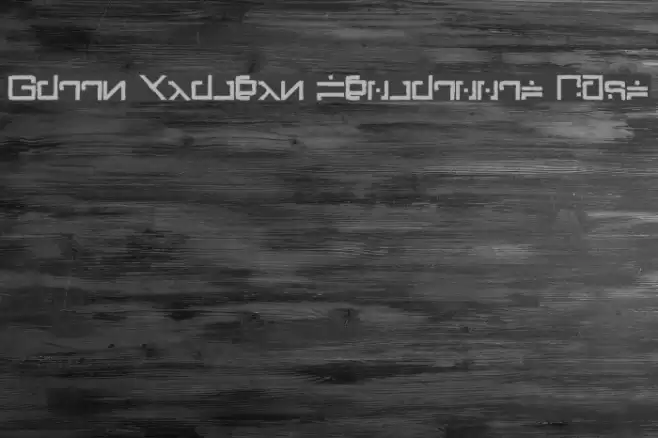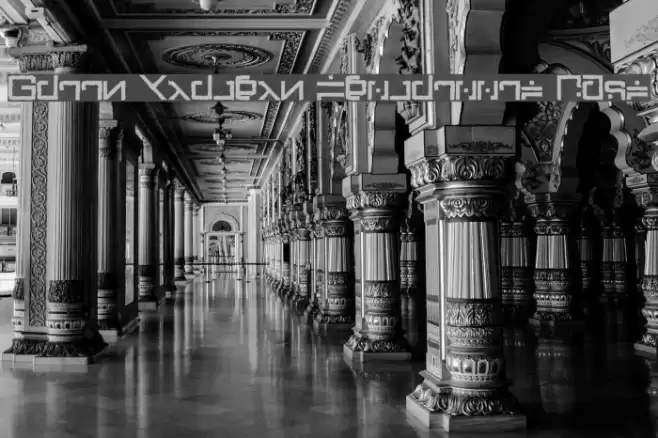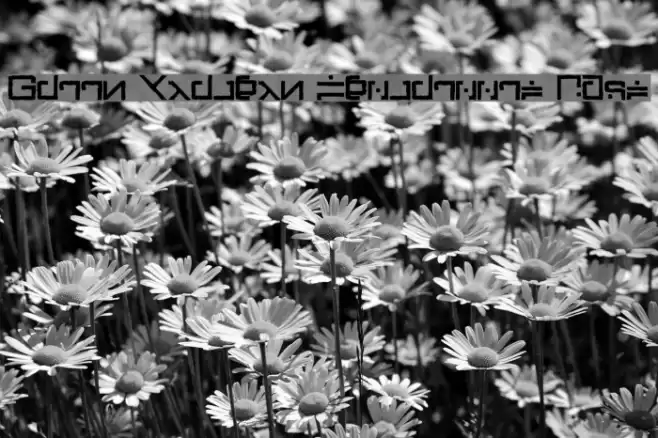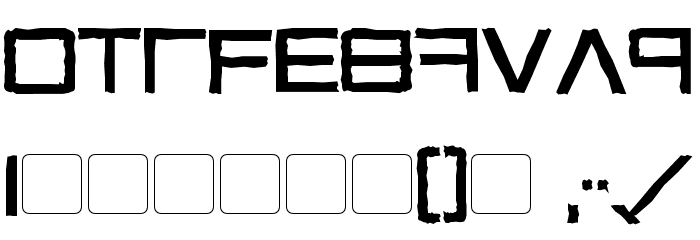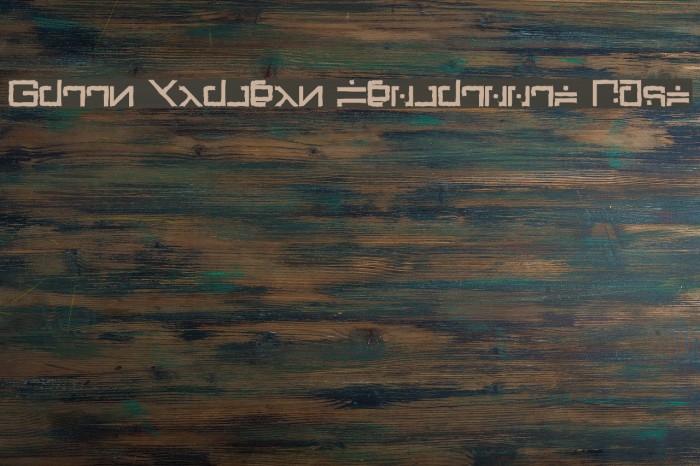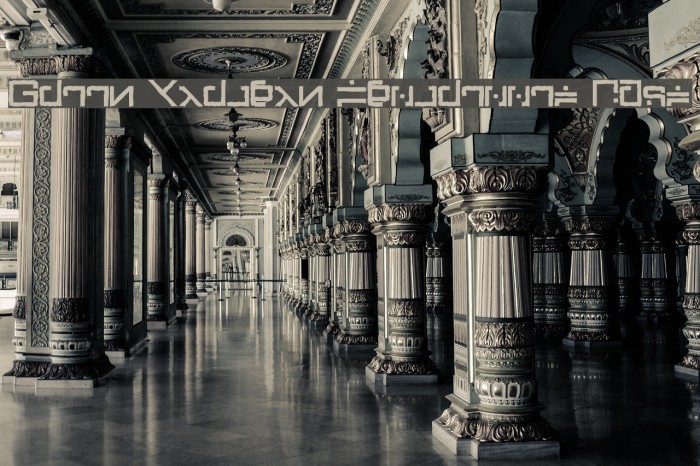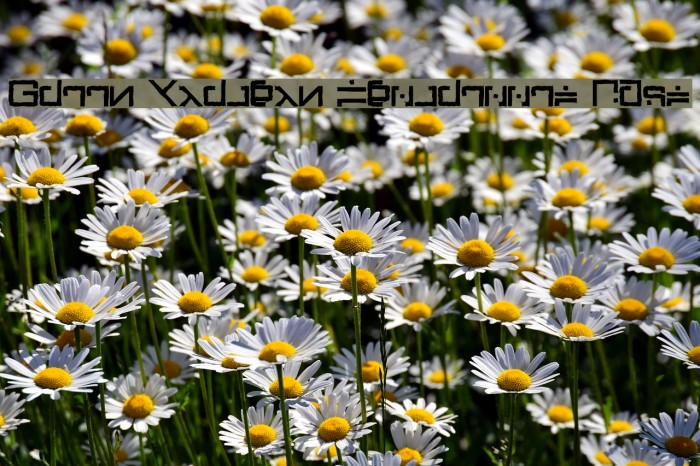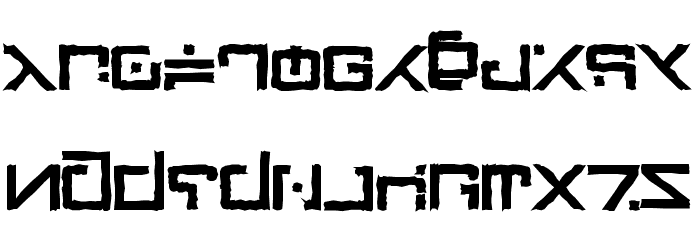
Green Martian Distressed Bold Font
Green Martian Distressed Bold Description
This font features a bold, distressed style with a futuristic and alien-like appearance. The characters are uniquely crafted with irregular edges and a rough texture, giving them a worn and rugged look. The uppercase letters are angular and geometric, while the lowercase letters maintain a similar style but with more variation in height and width. Numbers and special characters follow the same design principles, ensuring consistency across the typeface. The overall aesthetic is both modern and unconventional, making it stand out in any design project.
A bold, distressed font with a futuristic and rugged appearance from Uncategorized fonts.
- Proposed Projects: Ideal for sci-fi themed designs, video game graphics, movie posters, and branding for tech or space-related products.
- Overall Style: Futuristic, Distressed